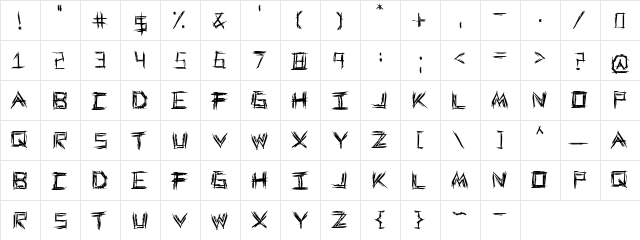
WE WRESTLE Regular
Design Context for WE WRESTLE Typeface
WE WRESTLE is a composed and adaptable typeface that performs quietly and consistently across a wide range of design contexts.